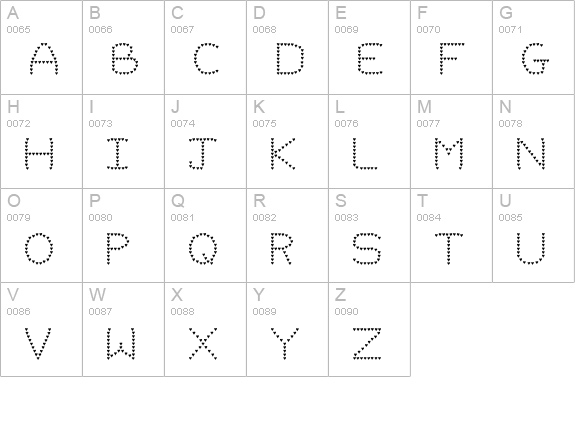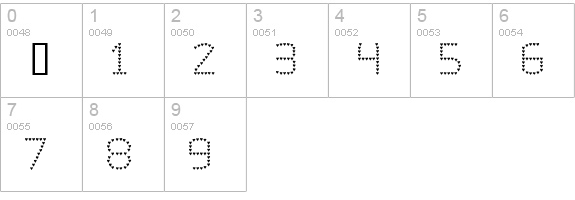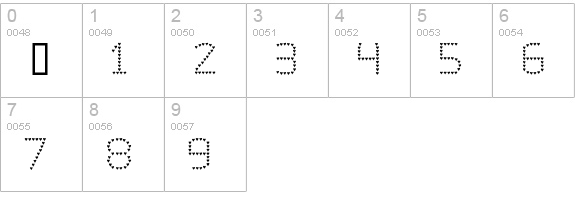
Evelyn's Heart Font Details
Evelyn's Heart font is a beautifully crafted typeface that exudes elegance and sophistication. Its delicate curves and intricate details make it the perfect choice for projects that require a touch of charm and grace. Whether you're designing wedding invitations, branding materials, or any other creative project, Evelyn's Heart font will add a special touch of beauty. And the best part? Evelyn's Heart font is completely free to download at FontsMarket.com. This means you can access this stunning font without any cost, making it a valuable addition to your font library. Don't miss out on the opportunity to enhance your designs with the timeless beauty of Evelyn's Heart font, available for free download today.